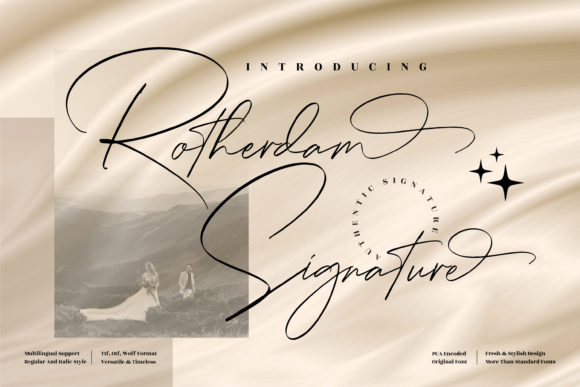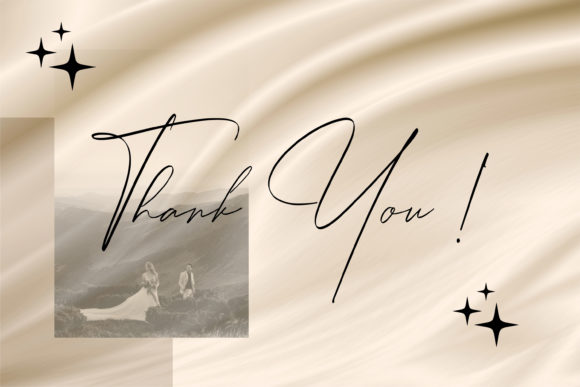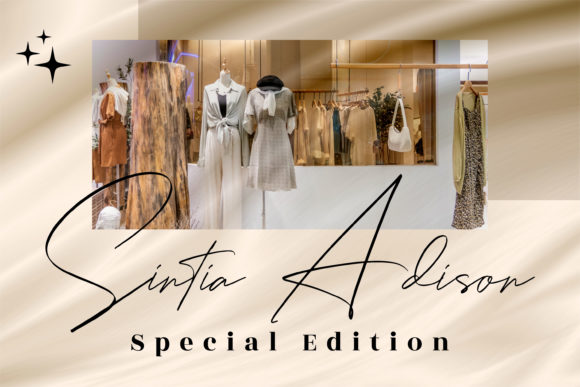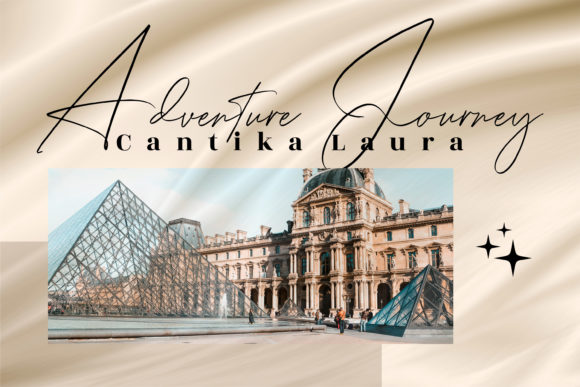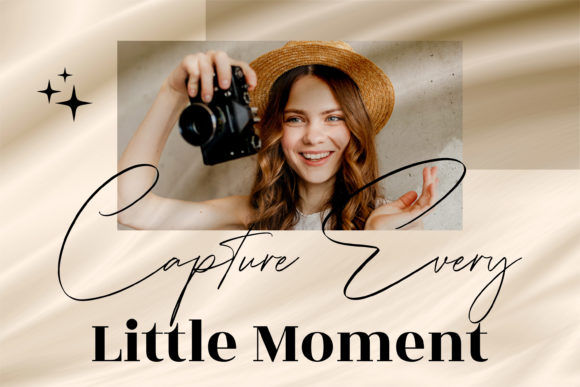
About Rotherdam Signature Font
Rotherdam Signature is a beautiful light handwritten font with a unique feel and a stunning impact. It will add a luxury spark to any design project that you wish to create! Rotherdam Signature is PUA encoded which means you can access all of the glyphs and swashes with ease!